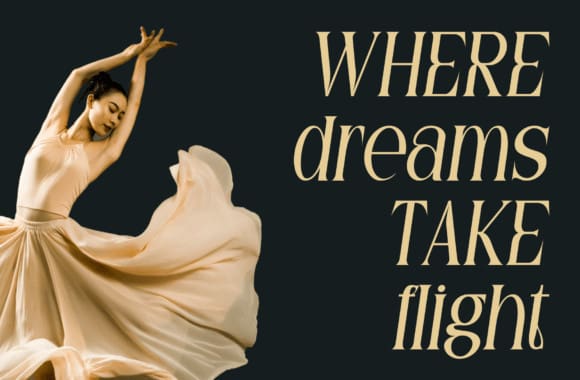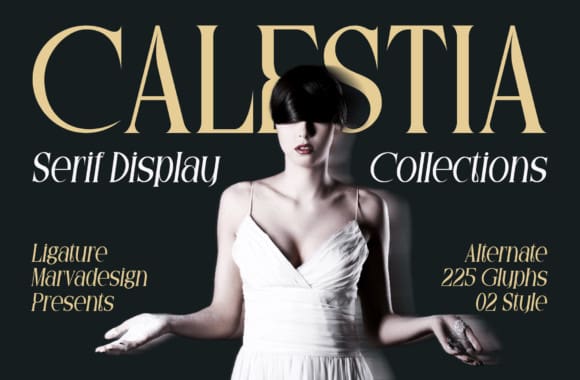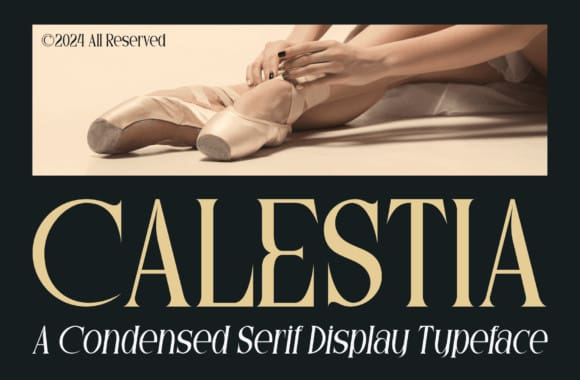
Calestia Font
Calestia Font is a type of font known as a Display Condensed Serif. This means it has elegant, decorative lines (serifs) at the ends of letters, and the letters are taller and narrower than usual. It’s perfect for creating eye-catching headlines or titles.